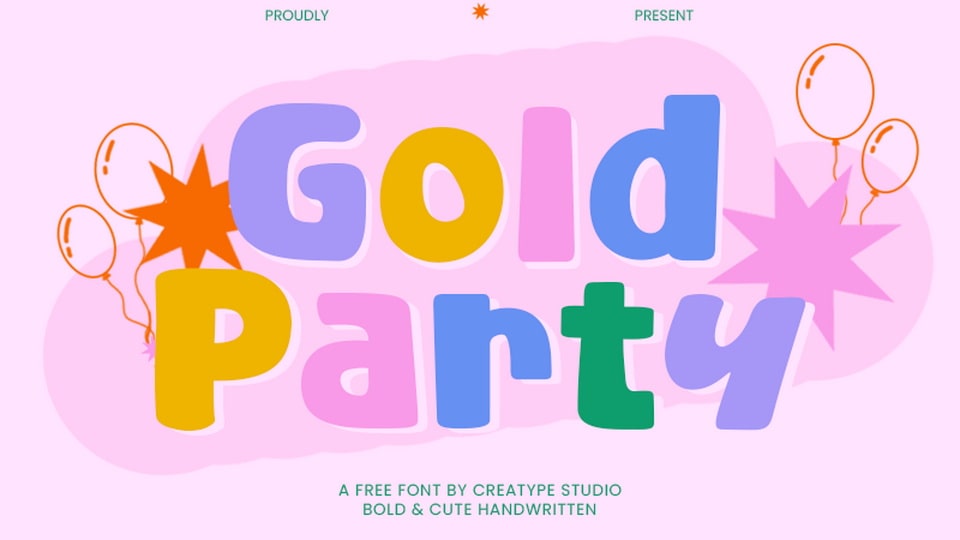
Gold Party, each character has a unique personality that feels approachable and full of life. Perfect for branding, packaging, and designs that aim to make a friendly statement, Gold Party font combines boldness with a sense of whimsy, giving your projects a warm, handcrafted vibe. The slightly irregular shapes and rounded edges add a touch of fun while maintaining a strong, confident look.
Great for logos, titles, and eye-catching posters, Gold Party font delivers a bold yet delightful punch to any creative work.